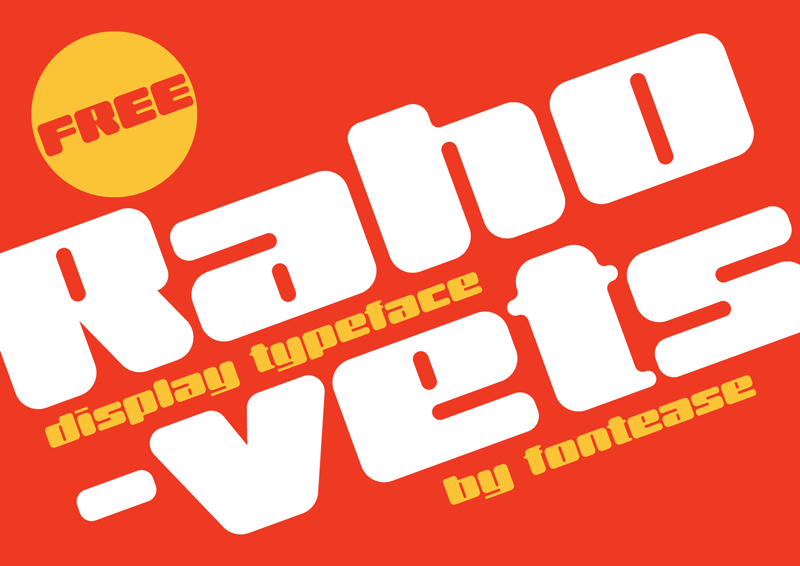
Rahovets is an ancient settlement and fortress located near the town of Gorna Oryahovitsa in Bulgaria. Rahovets by Fontease is a free font inspired by an inscription on the most popular Bulgarian compact oven from the communist era, which bears the same name. ���������������������������������������������� � more than 400 characters including Cyrillic � free for both personal and commercial use ��������������������������������� Have fun! Enjoy our free font! :) Fontease ���������������������� tease@fontease.com https://fontease.com/ |